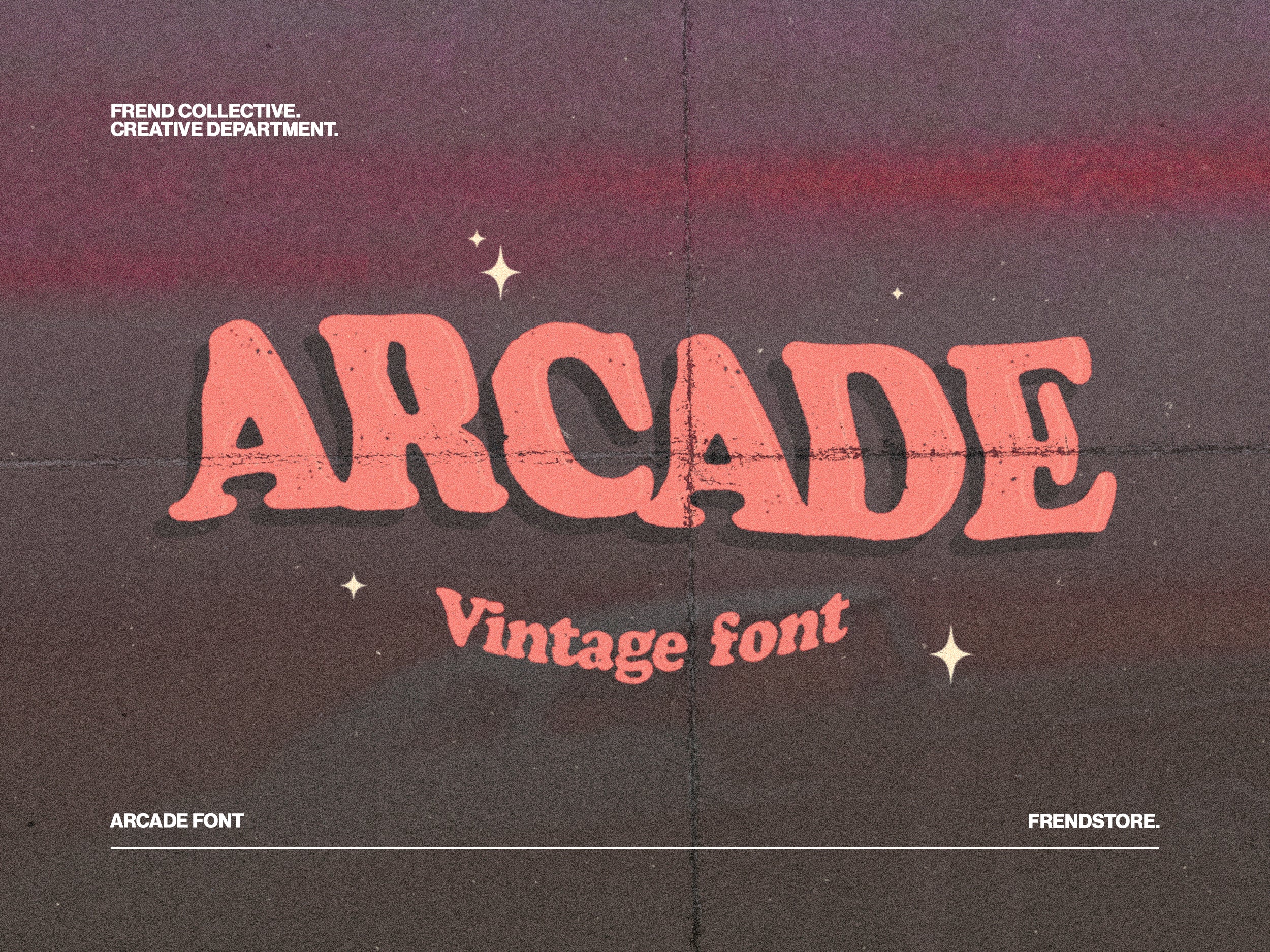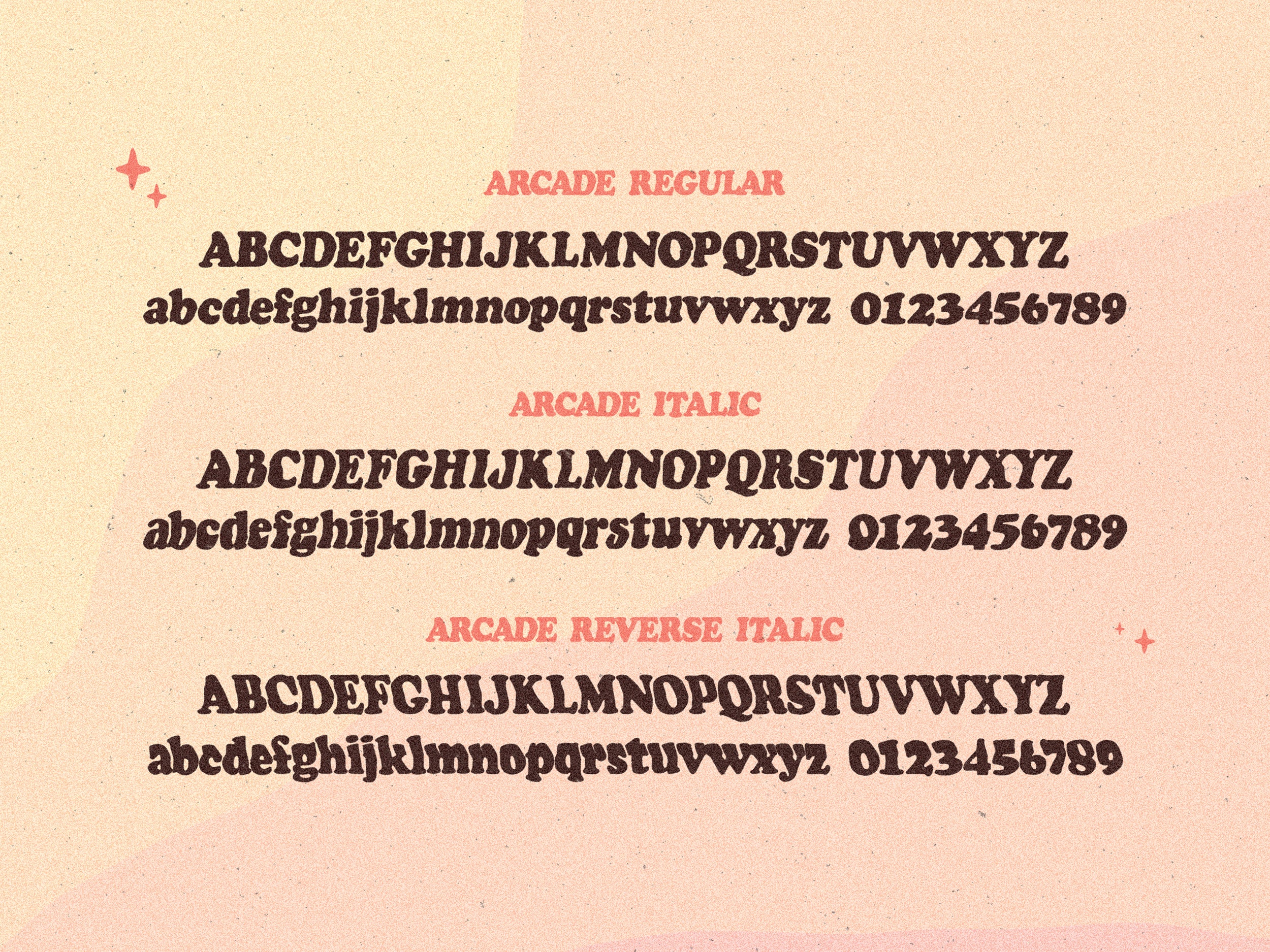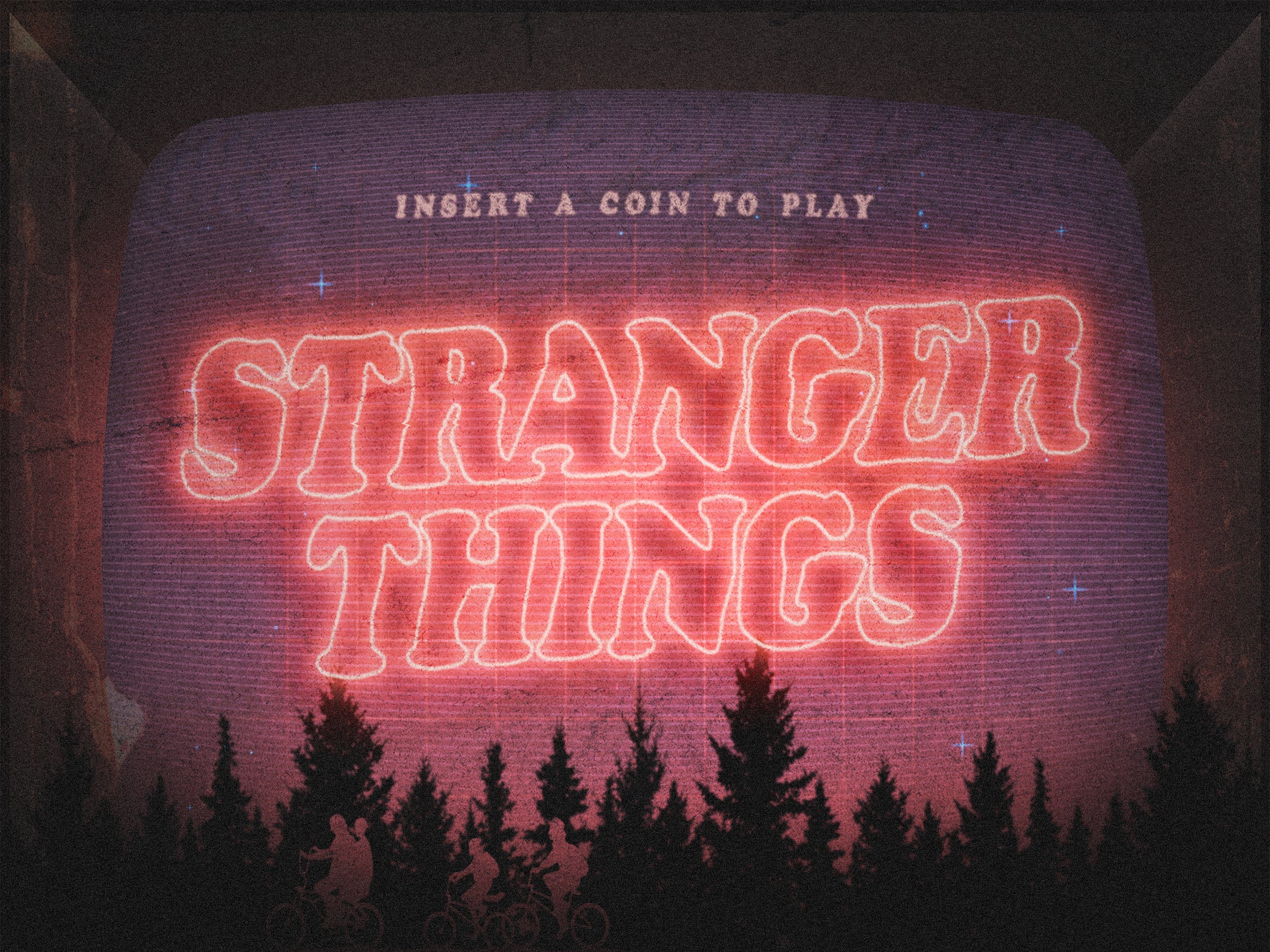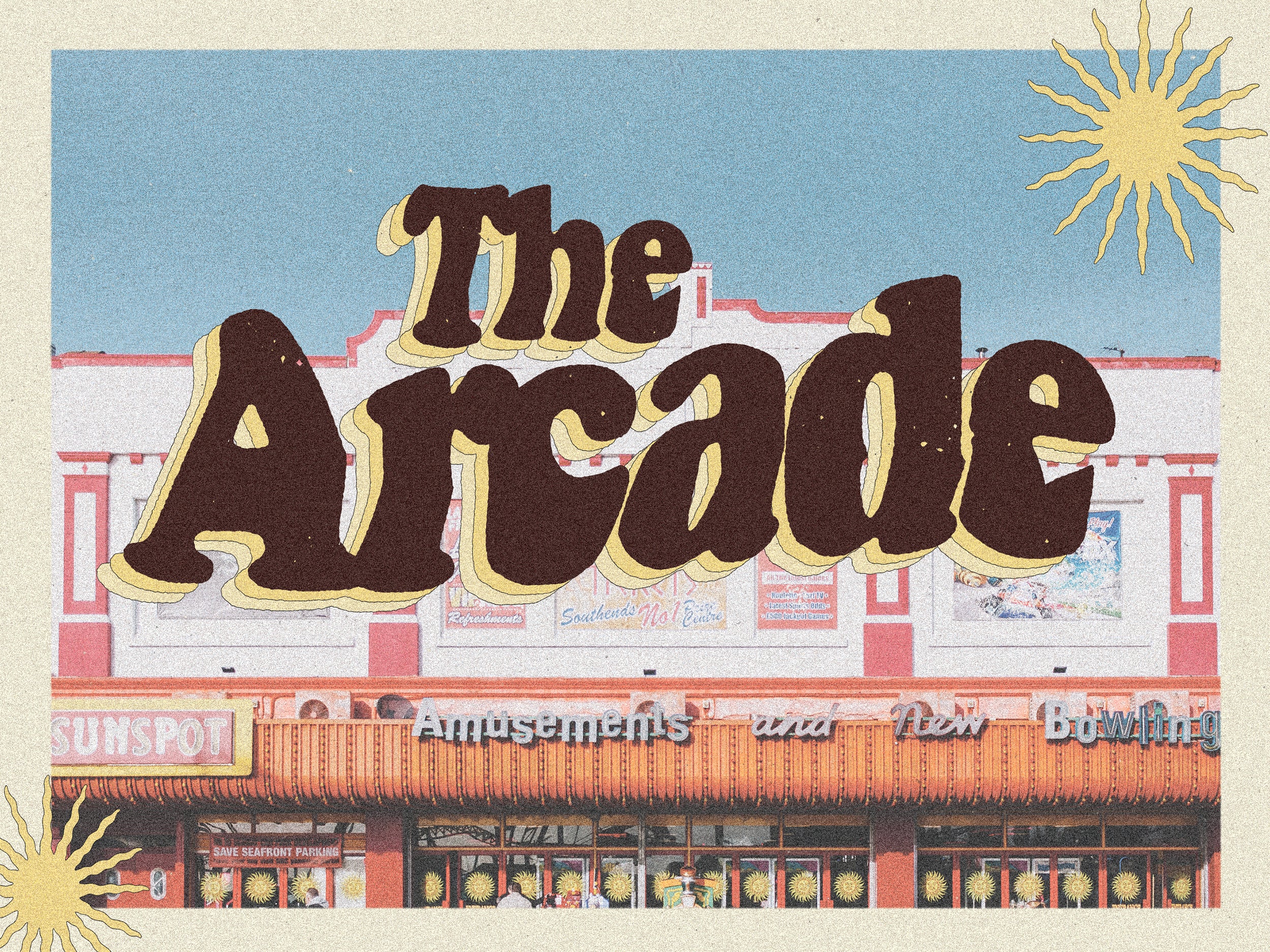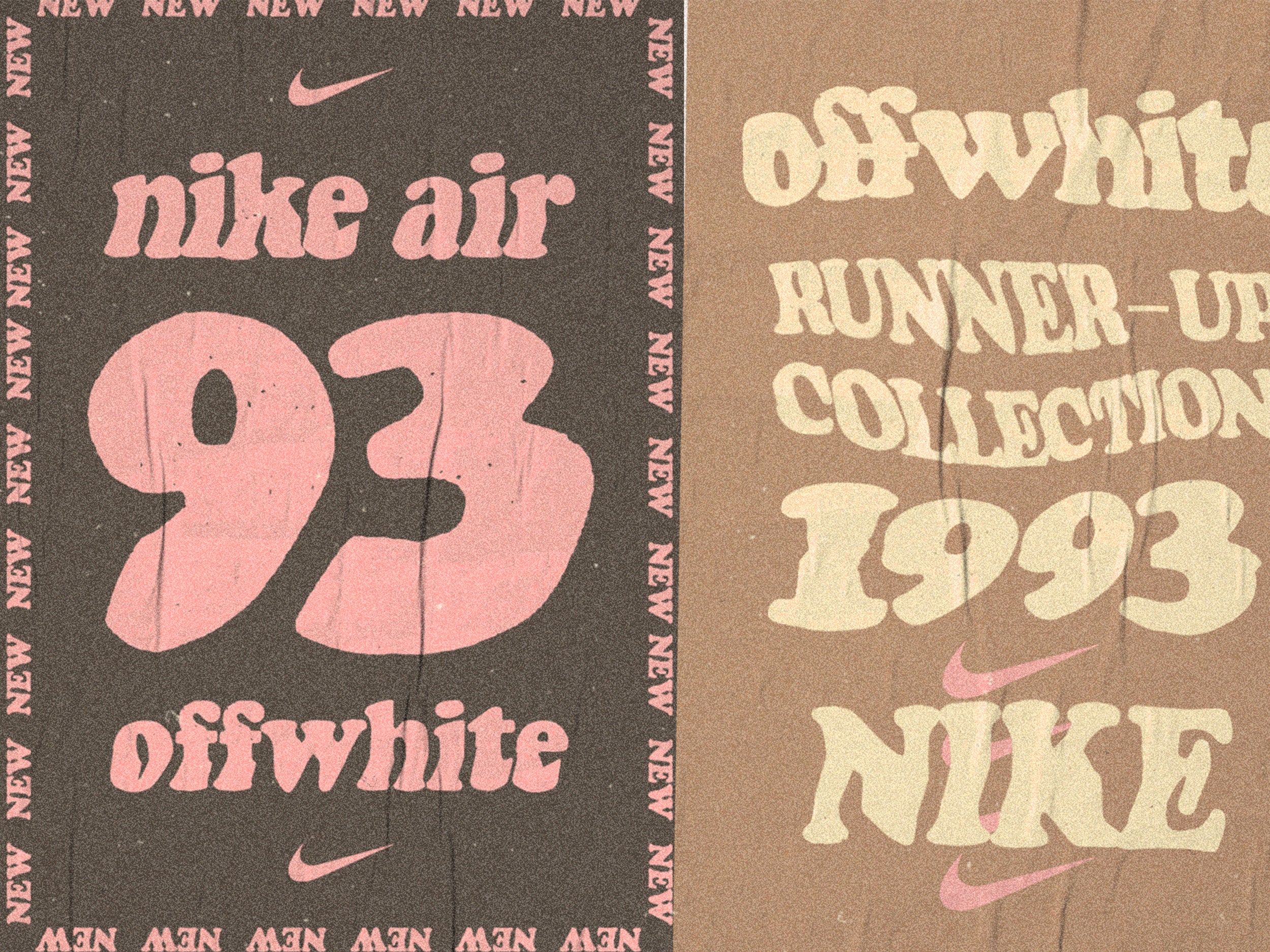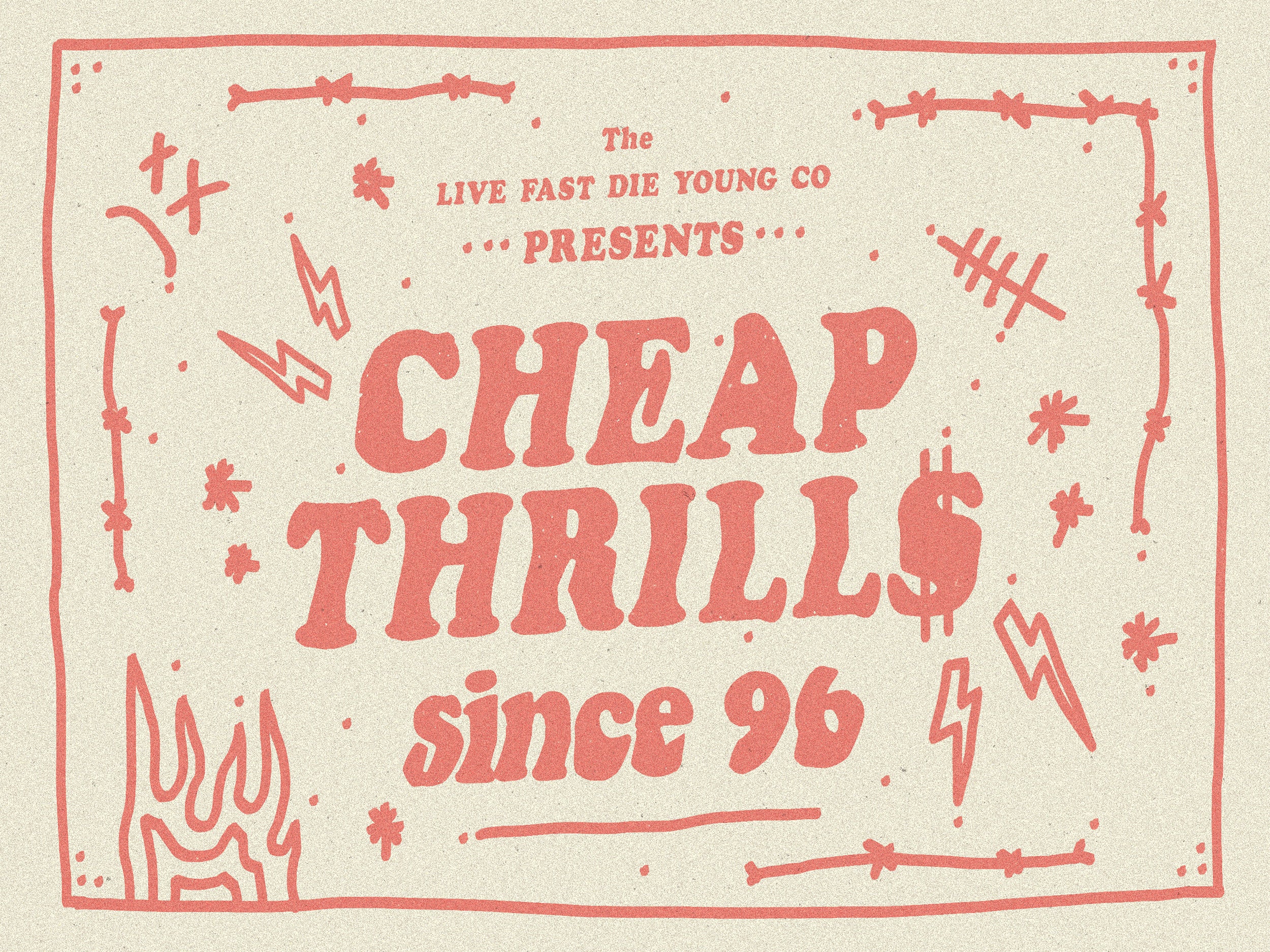
ARCADE FONT
Introducing Arcade Font
Arcade Font is a completely unique and custom vintage inspired font. Arcade comes with 3 variations which you can mix & match and is perfect for any design project.
Includes: Arcade Regular / Arcade Italic / Arcade Reverse-Italic.
Features: All Caps Fonts / Lower Case / Numerals.